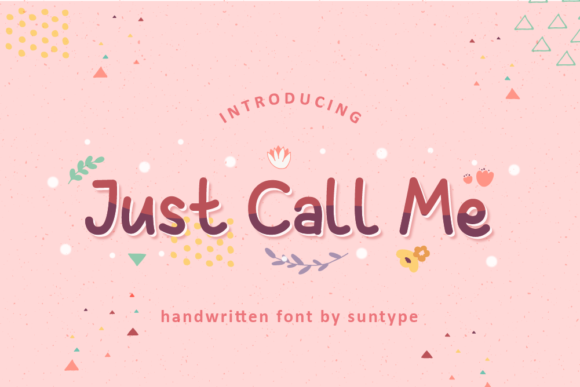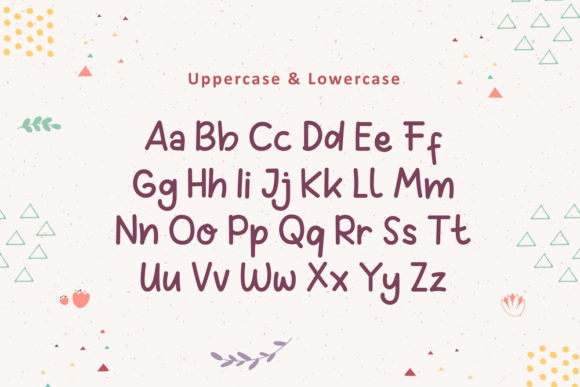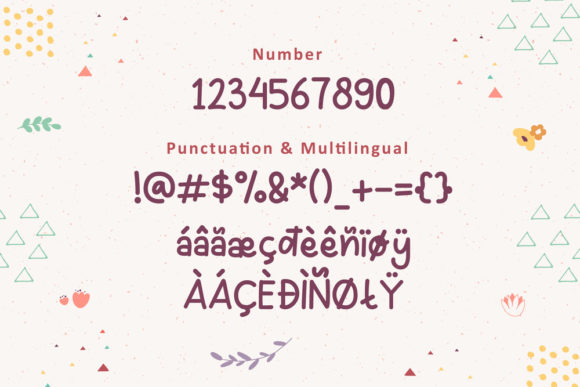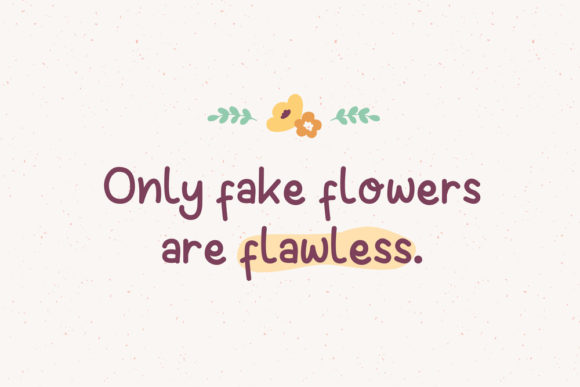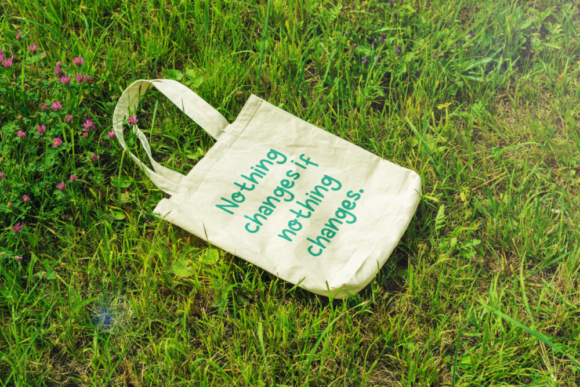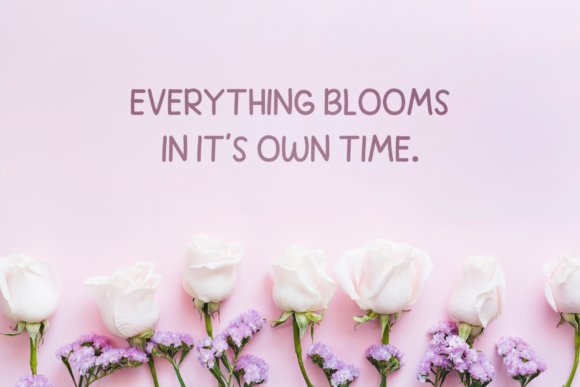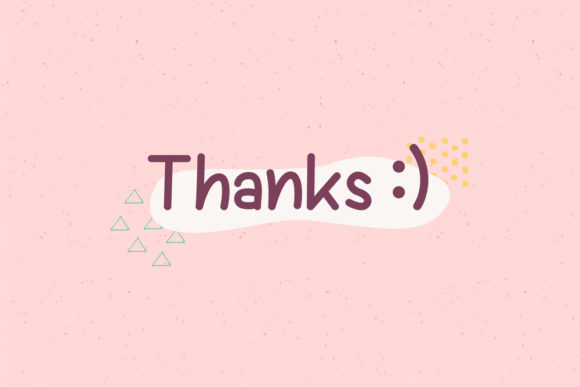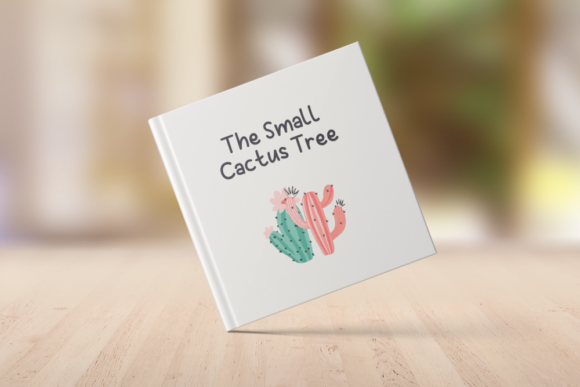
Just Call Me Font
About Just Call Me Font
Just Call MeĀ is a cute and simple lettered handwritten font that can be used for all chalkboard quotes or teaching material! Its authentic look will add a personal and realistic feel to your designs.